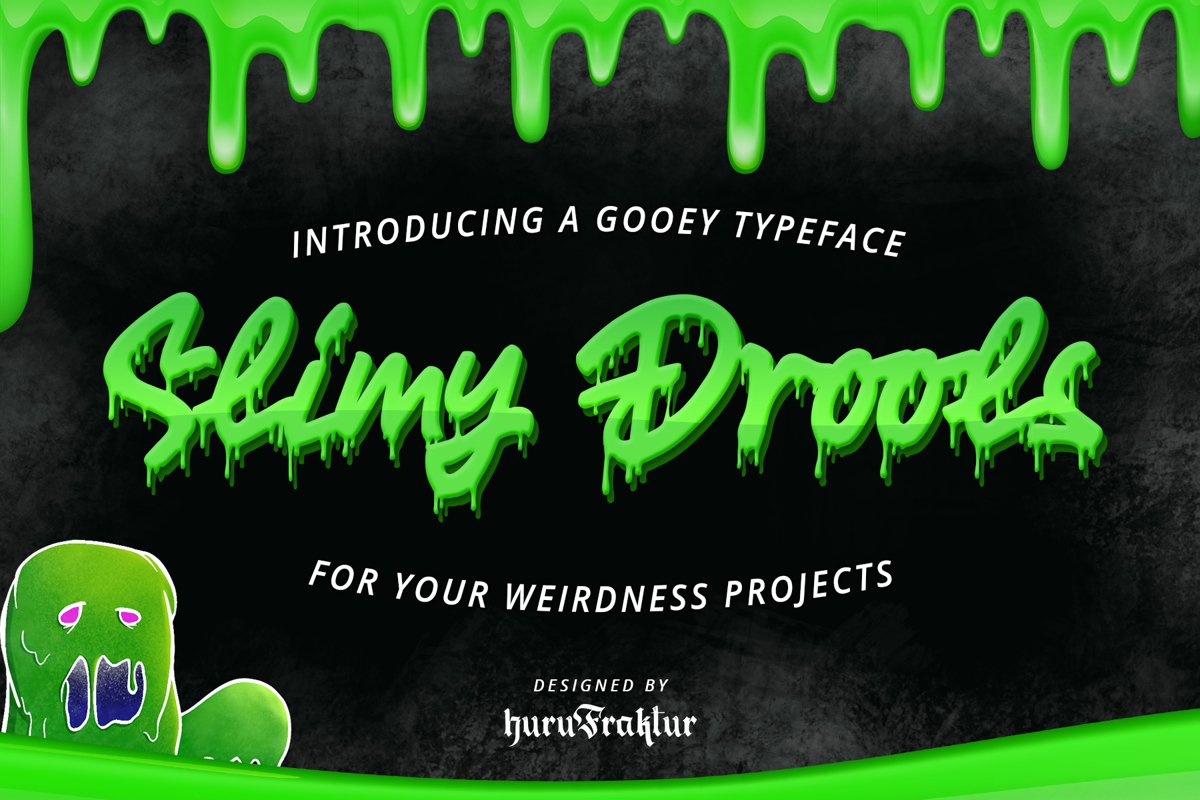
Slimy Drools
A Gooey typeface for your weirdness projects, Slimy Drools Font.
Do you looking for a gooey, muddy, slimy, dripping, drooling, melting fonts for your design? this is the answer!
Slimy Drools Font is created with freehand digital drawing and created very detail, best for your weird project such as Slime War Event or Slime Party. And you can also use it for vintage horrific poster. It also good for your design elements as well.
Apply any colour you want and you'll get a dripping looks of element you like as letters such as Chocolate, Honey, Glue, Blood, Jam, etc.